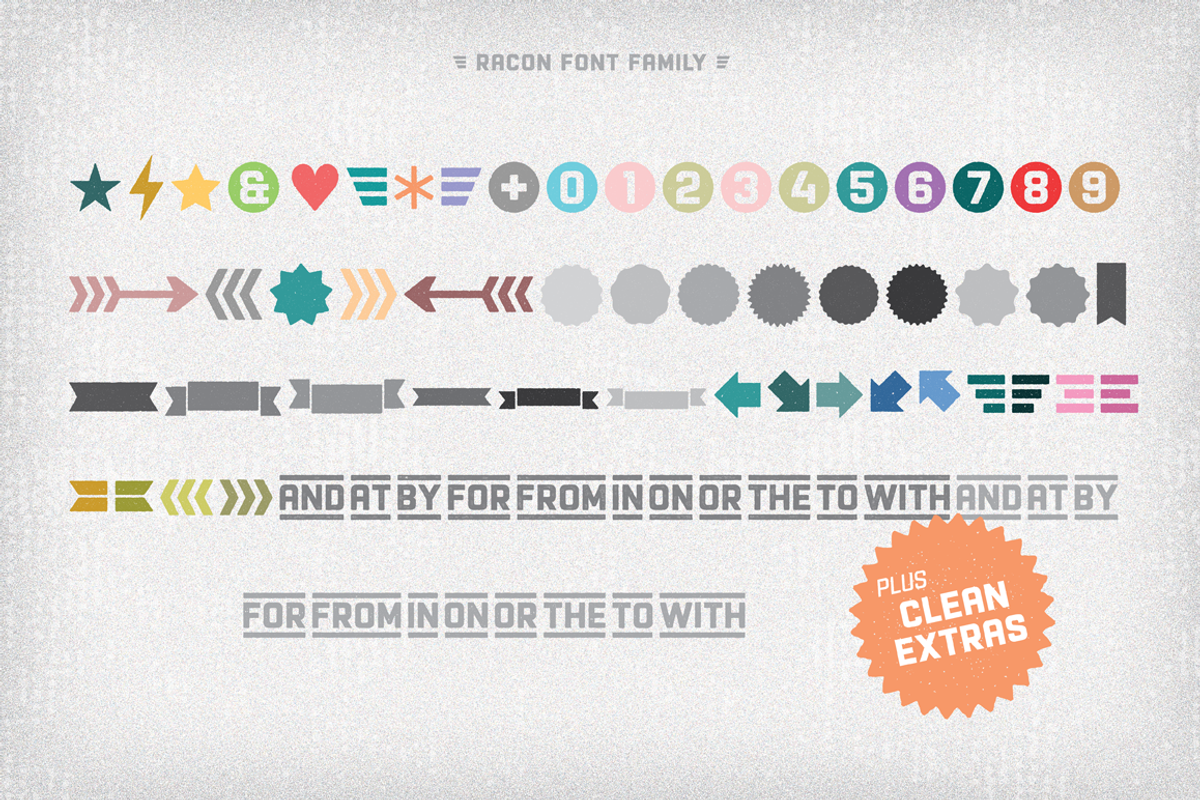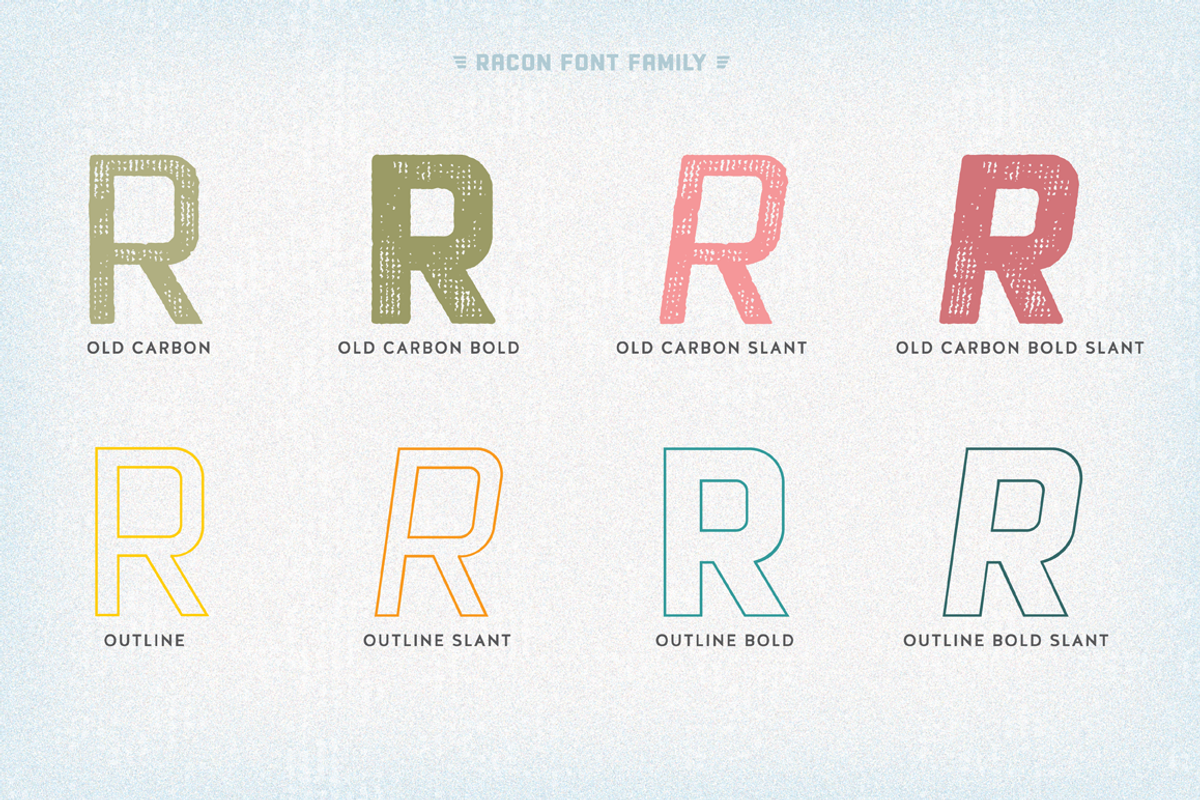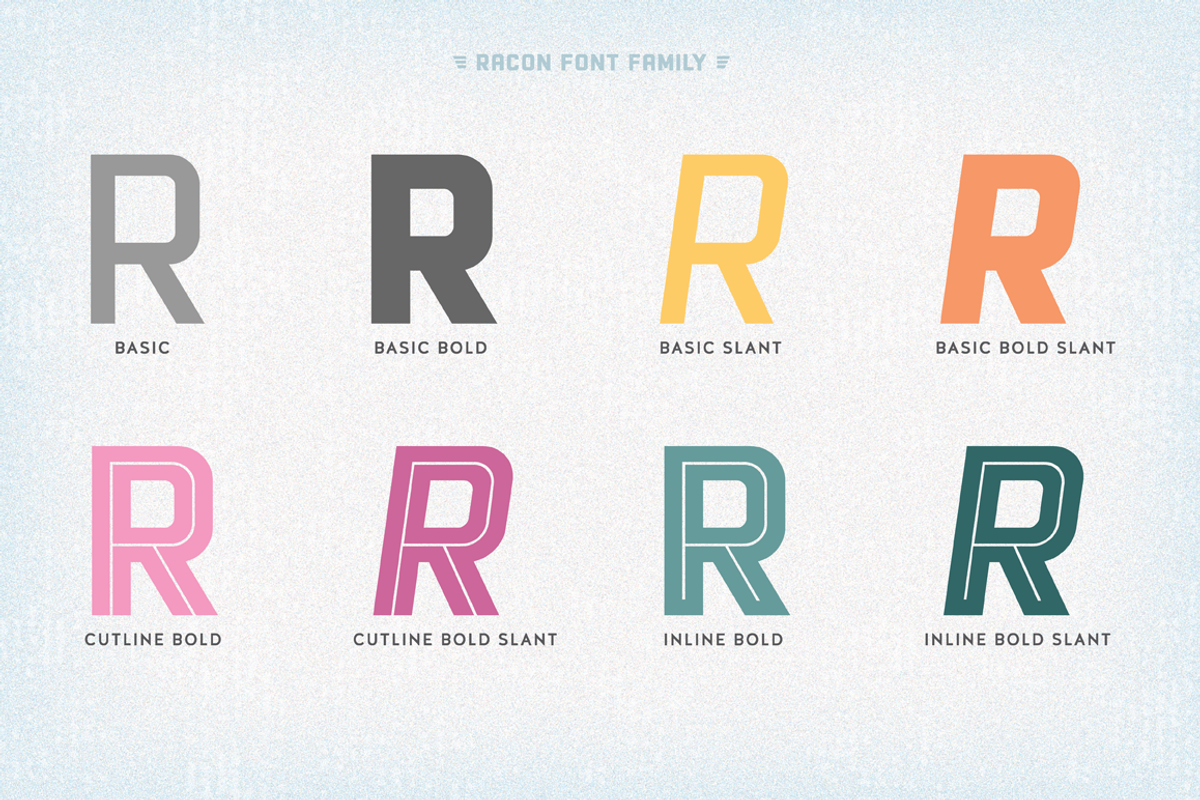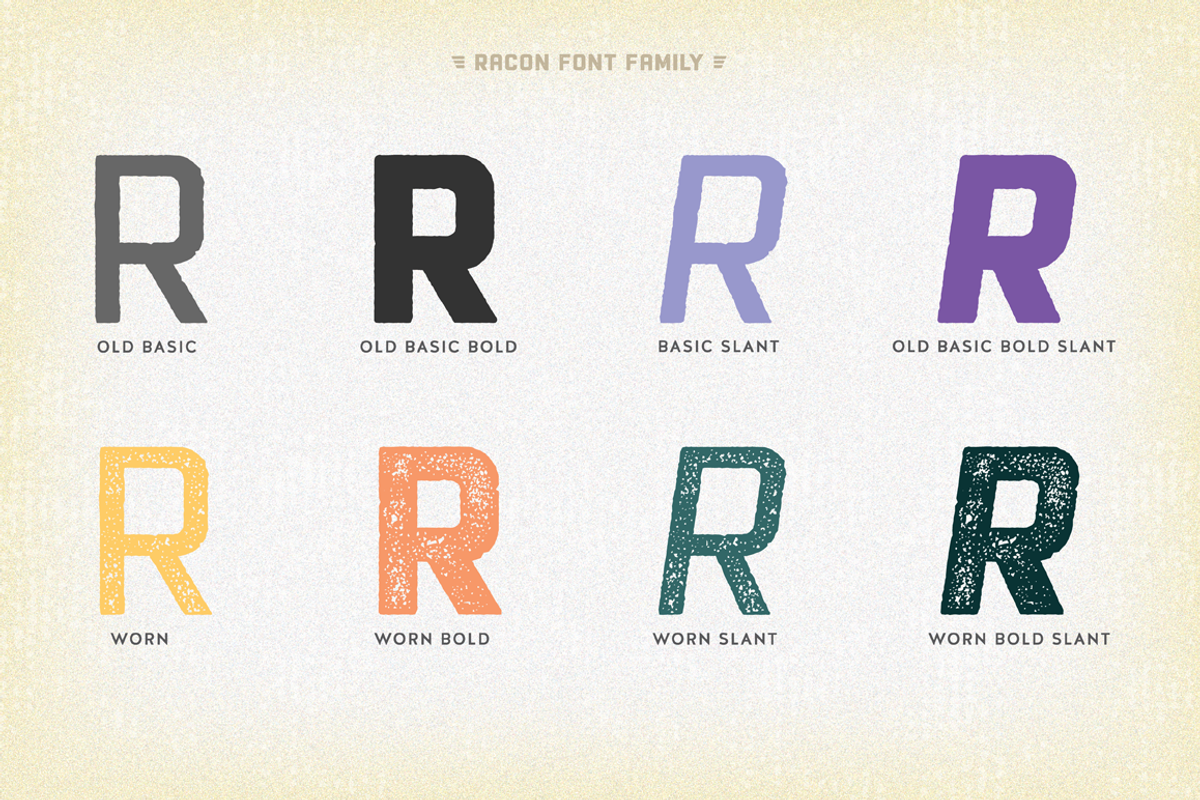
Racon Font Family
Racon Font Family by Ahmet Altun is a font selected for branding, posters, packaging, typography.
Why Racon Font Family is worth a look
Racon Font Family by Ahmet Altun fits naturally into Branding, posters, packaging, typography.